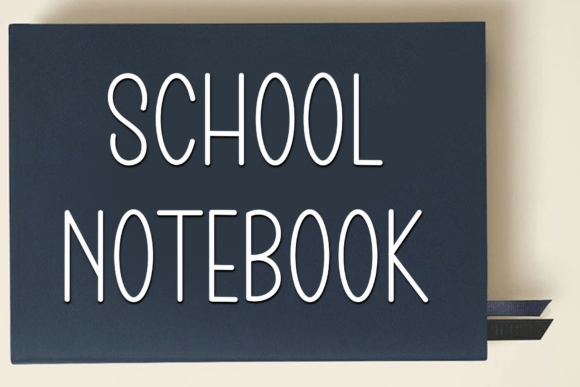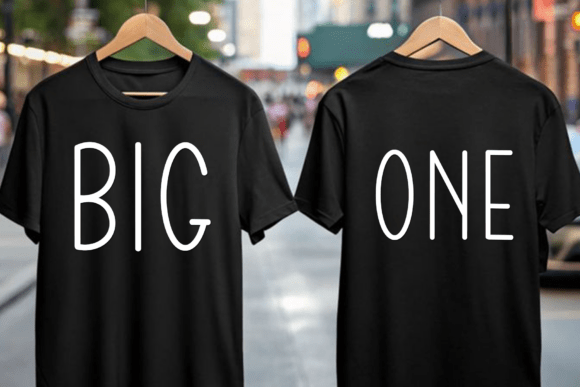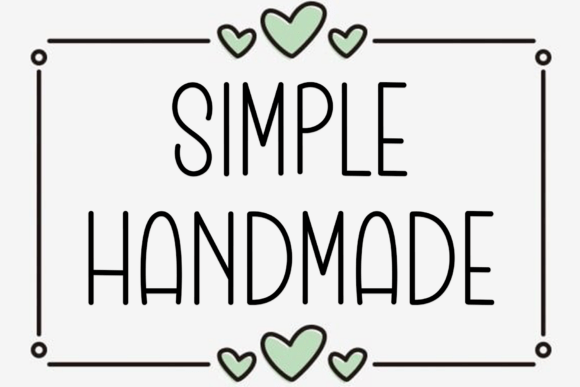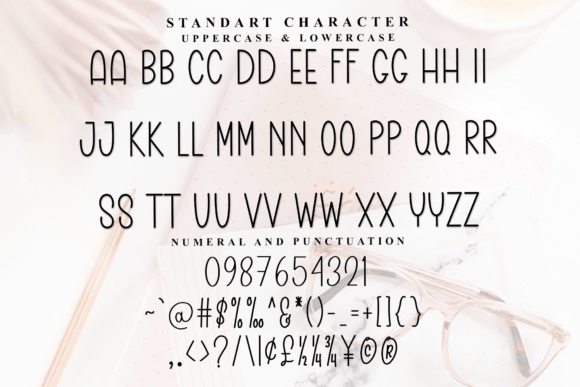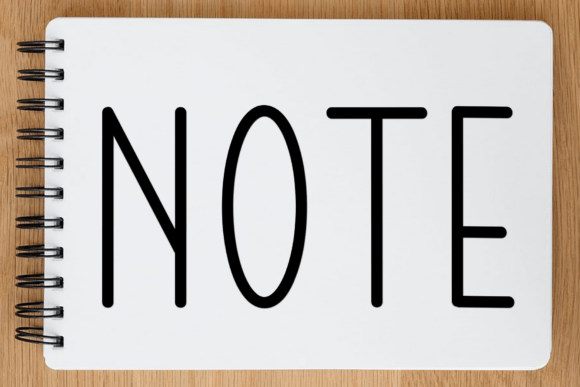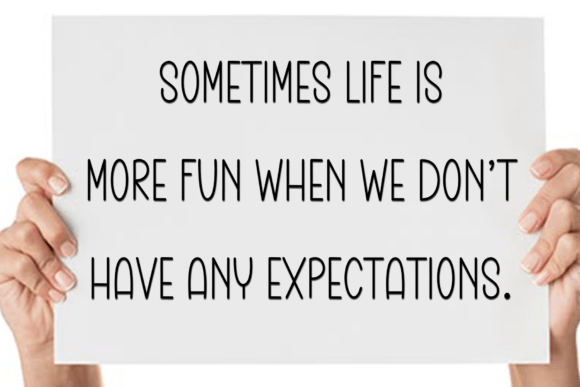
Introducing Happy Playful Font: The Perfect Addition to Your Design Projects
Are you tired of using the same old fonts in your design projects? Look no further! Happy Playful Font is a beautiful and eye-catching font that is sure to add a touch of whimsy and fun to your creations. Designed with a soft, unique touch, this font is perfect for designers, crafters, and artists looking to add some personality to their work.
A Font with a Special Character
What sets Happy Playful Font apart from other fonts is its distinctive strokes, which give it a special character that is both meaningful and versatile. This font is perfect for a wide range of design projects, from crafts and DIY projects to professional design work. Its unique touch makes it ideal for creating eye-catching titles, headings, and text that will grab the attention of your audience.
Happy Playful Font is a versatile font that can be used in a variety of design projects, including:
- Logo design: Create a fun and playful logo for your business or brand with this unique font.
- Social media graphics: Add a touch of personality to your social media posts and graphics with Happy Playful Font.
- Invitations and party decorations: Create custom invitations and party decorations that will make your event stand out.
- Crafts and DIY projects: Add a personal touch to your crafts and DIY projects, such as scrapbooking, card making, and journaling.
A Natural Font Style for a Wide Range of Products
Happy Playful Font is a natural font style that is perfect for a wide range of products, including:
- Stationery and greeting cards: Add a touch of personality to your stationery and greeting cards with this unique font.
- Signs and posters: Create eye-catching signs and posters that will grab the attention of your audience.
- Digital products: Use Happy Playful Font in your digital products, such as ebooks, printables, and courses.
Enhance Your Designs with Happy Playful Font
With Happy Playful Font, you can enhance your designs and make them appealing to a wide range of audiences across different artistic and creative fields. Whether you’re a designer, crafter, or artist, this font is sure to add a touch of whimsy and fun to your work.
Key Features of Happy Playful Font
- Unique and eye-catching design
- Soft and playful touch
- Distinctive strokes for a special character
- Versatile and compatible with various applications
- Perfect for design projects, crafts, and DIY projects
In conclusion, Happy Playful Font is a beautiful and eye-catching font that is perfect for designers, crafters, and artists looking to add some personality to their work. With its unique touch, distinctive strokes, and versatility, this font is sure to enhance your designs and make them appealing to a wide range of audiences. So why wait? Download Happy Playful Font today and start creating fun and playful designs that will stand out from the crowd!